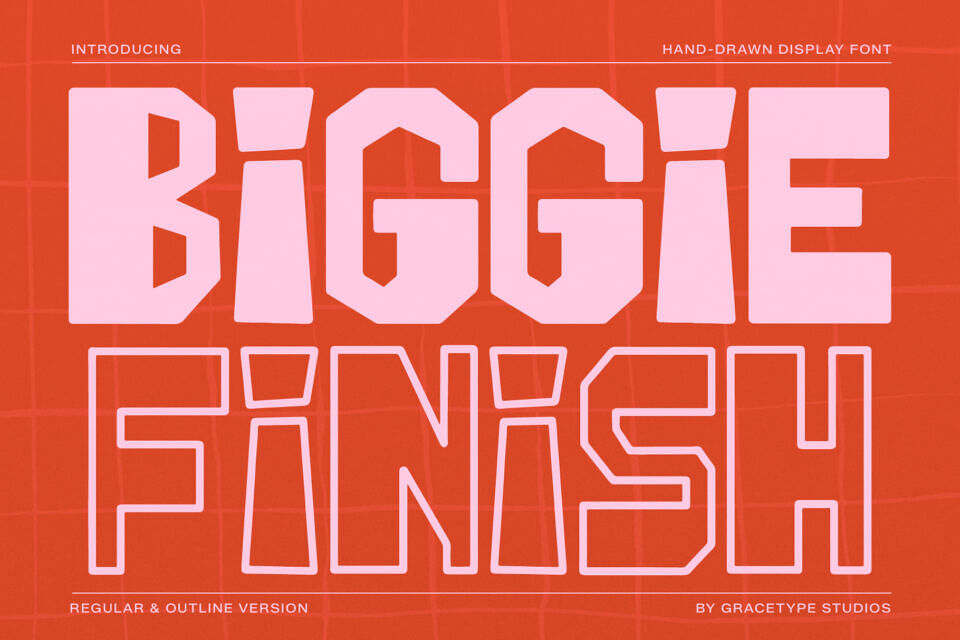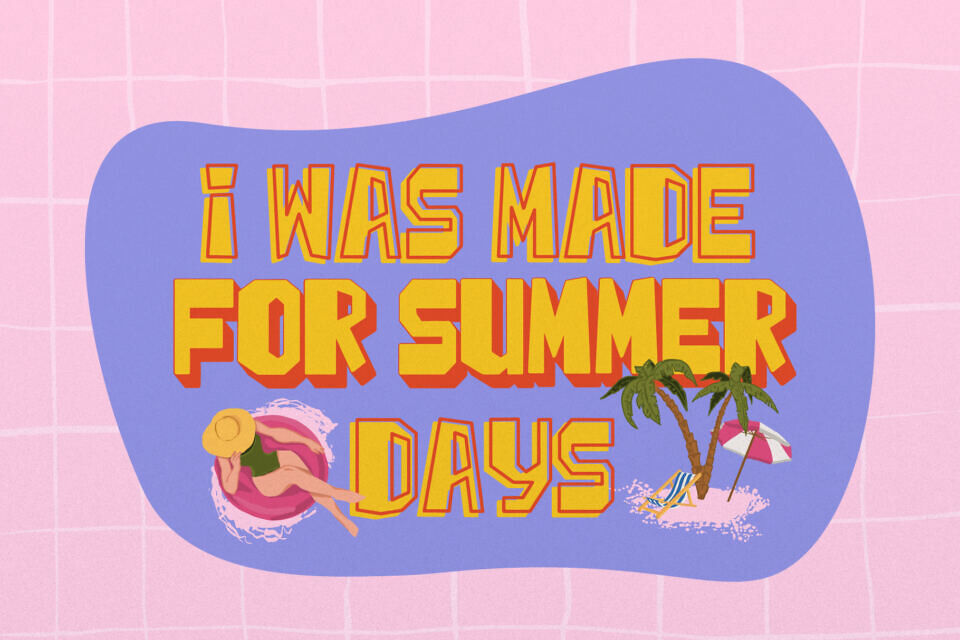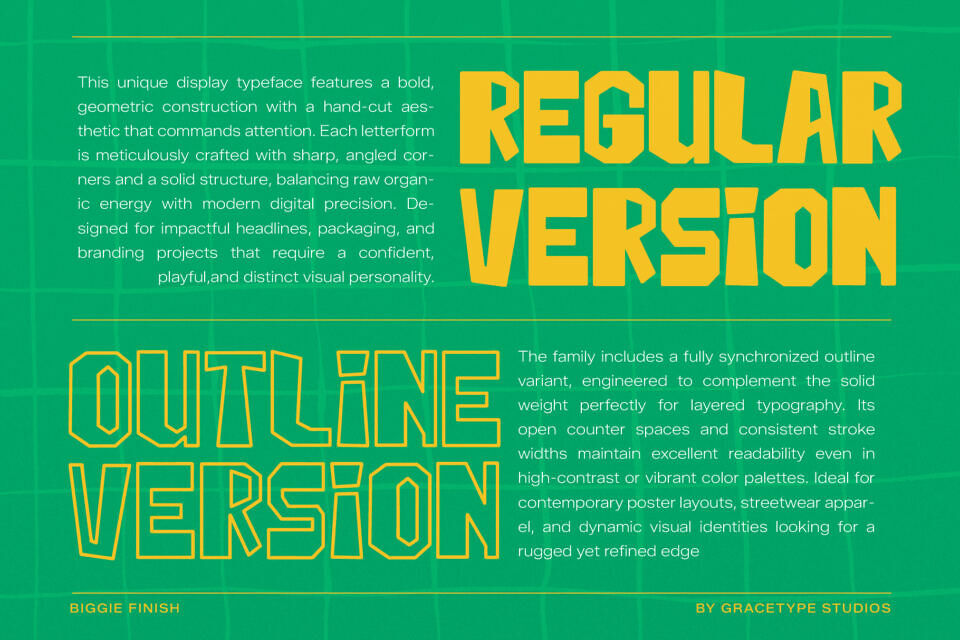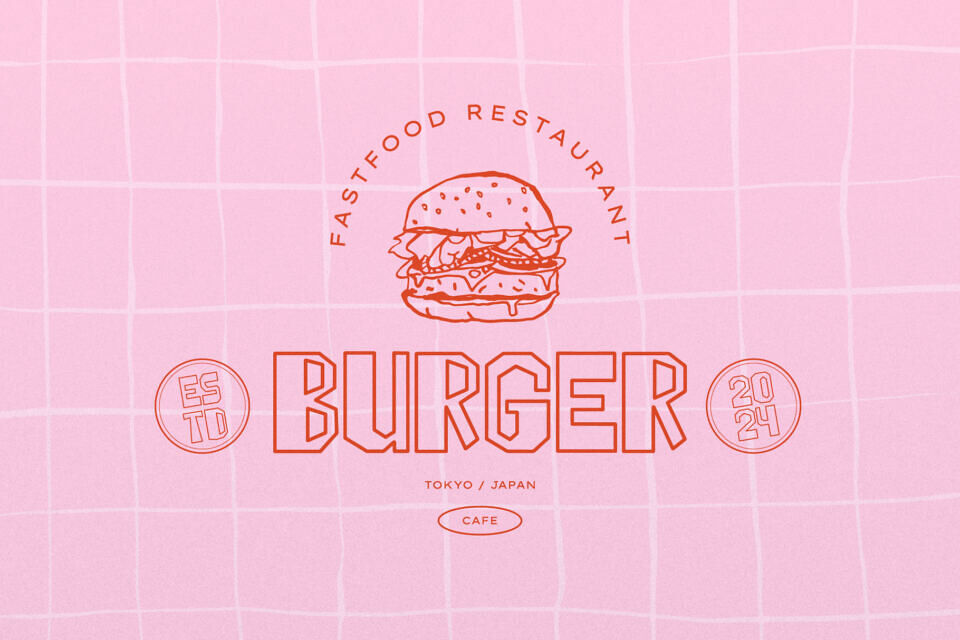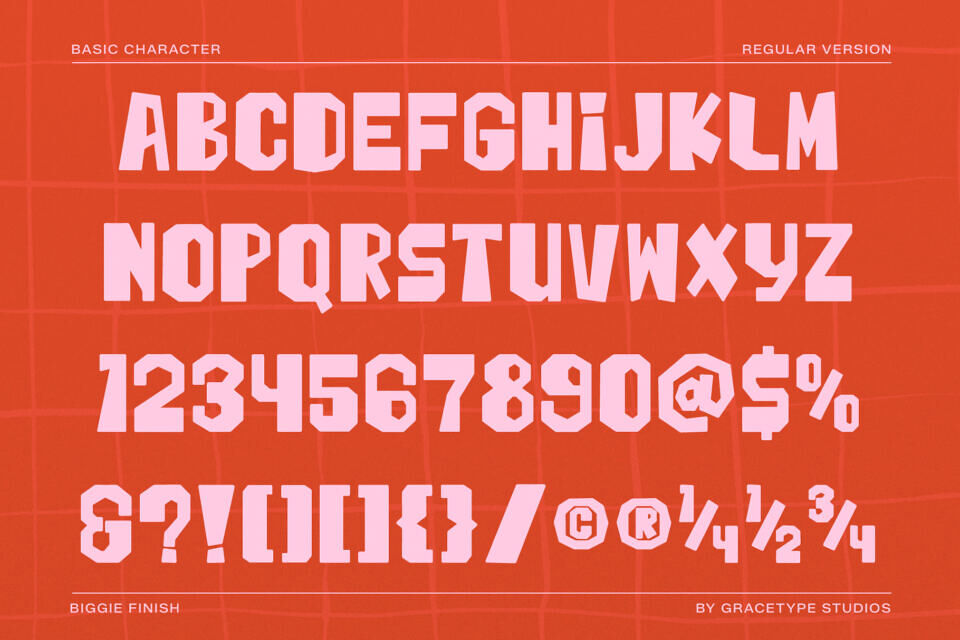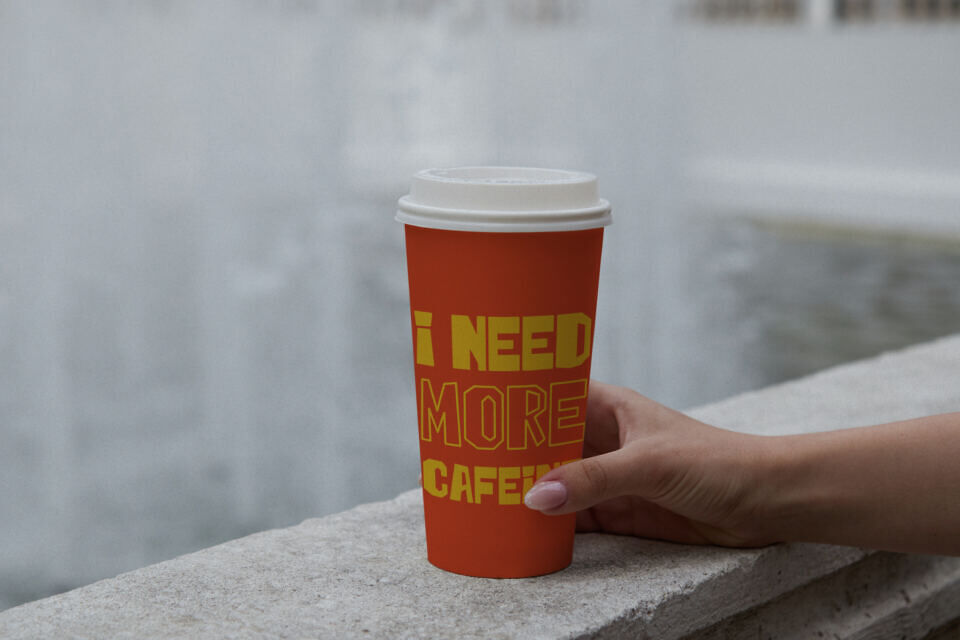
Biggie Finish is a Hand Drawn Display from Gracetypestudio, suitable for any projects such as: logos, branding projects, homeware designs, product packaging, mugs, quotes, posters, shopping bags, t-shirts, book covers, name card, invitation cards, greeting cards, label, photography, watermark, special events, and all your other lovely projects that need a Hand Drawn taste.